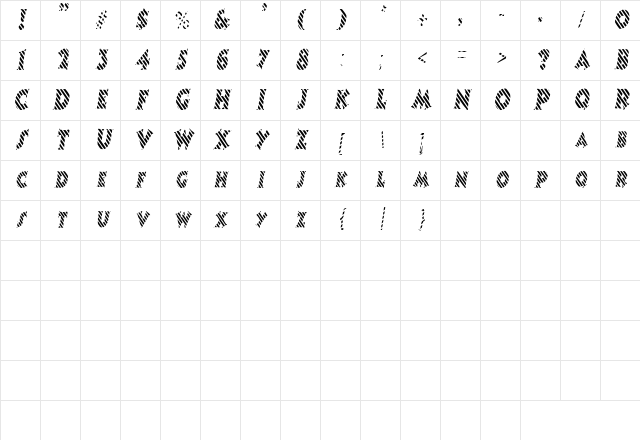
Complete CandyStripeCondensed Oblique glyph index. Displaying only characters natively supported by CandyStripeCondensed Oblique font.
CandyStripeCondensed is a composed and adaptable typeface that performs quietly and consistently across a wide range of design contexts. The slanted form adds forward momentum and visual energy. Its narrow stance lets it pack a punch even in space-constrained designs.
Pro Tip: Use CandyStripeCondensed for emphasis, pull quotes, and subheadings where its slanted energy can add rhythm to the layout.